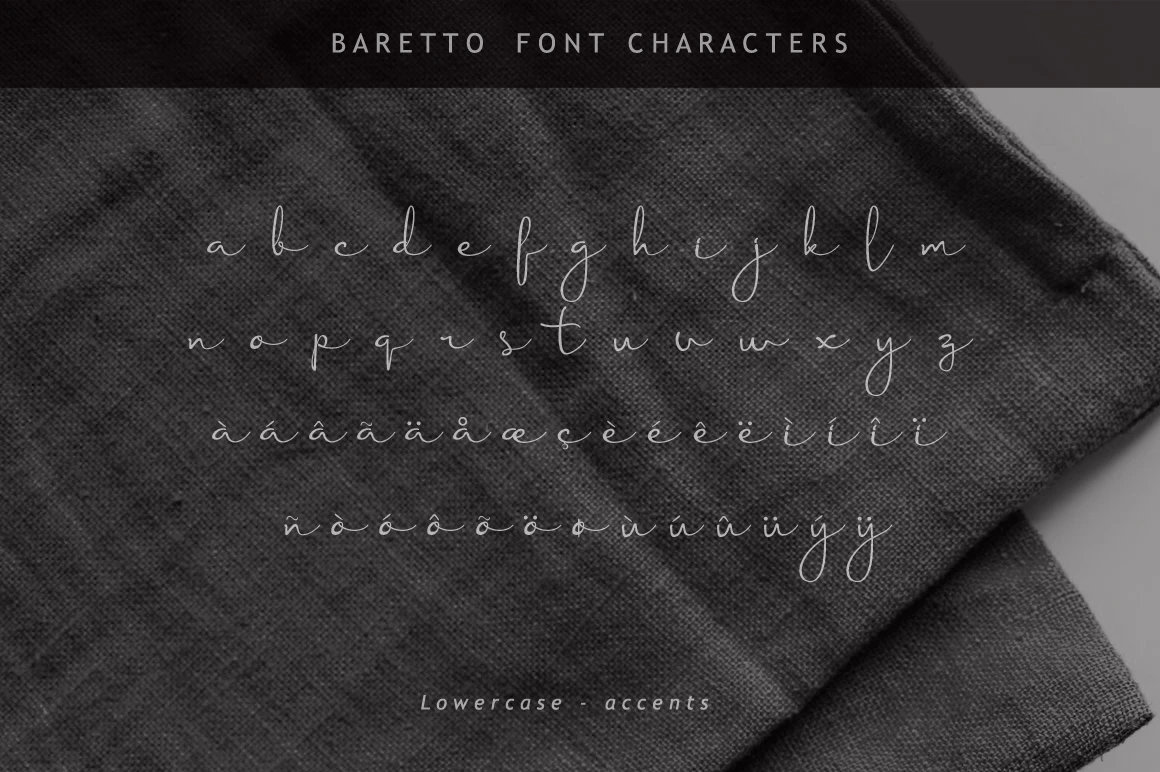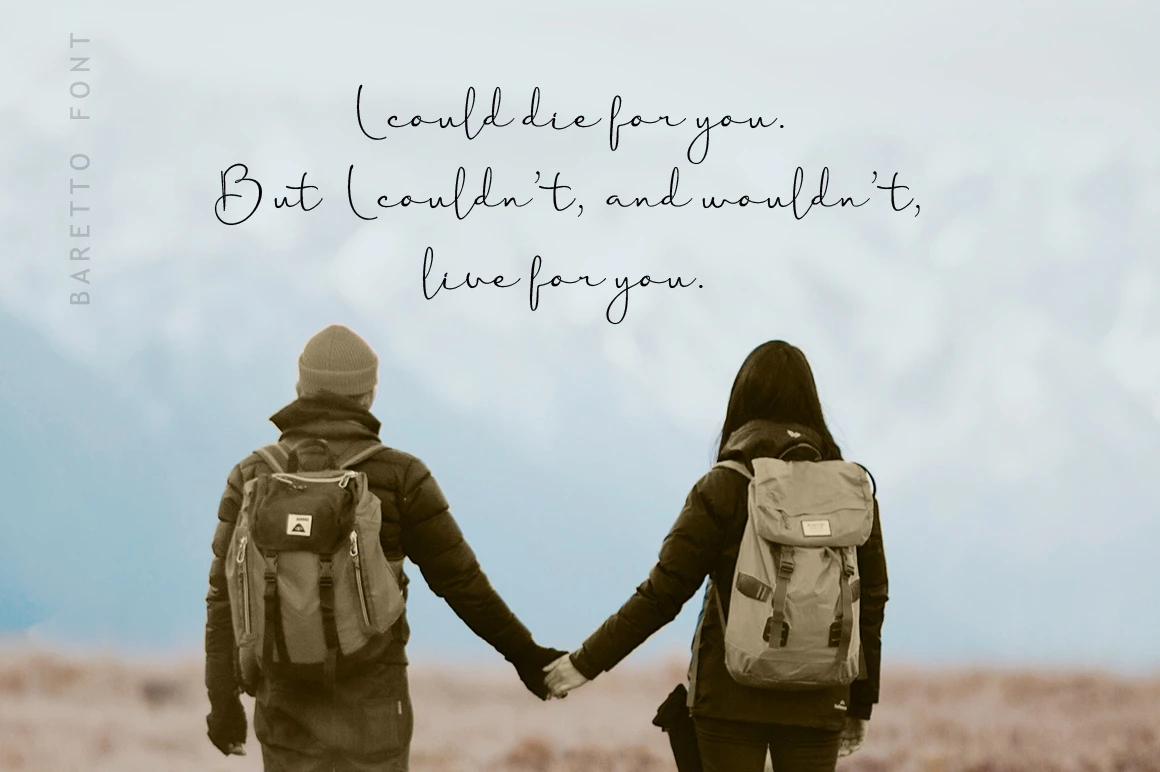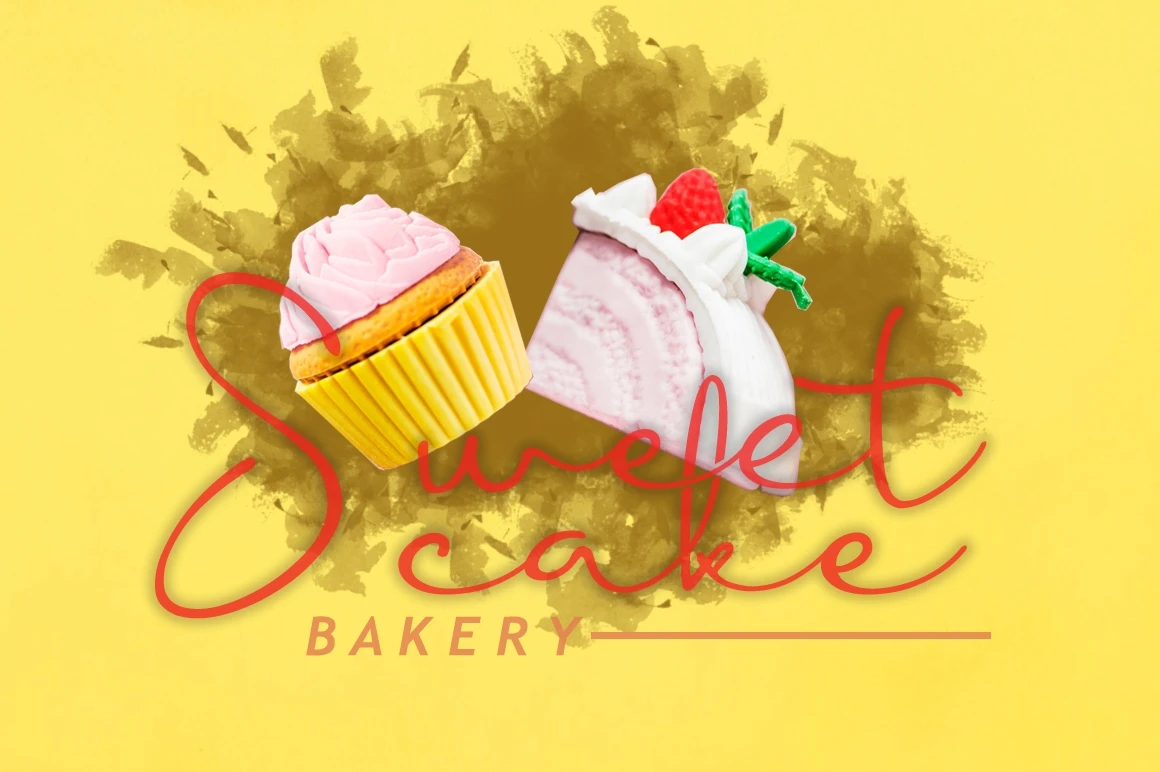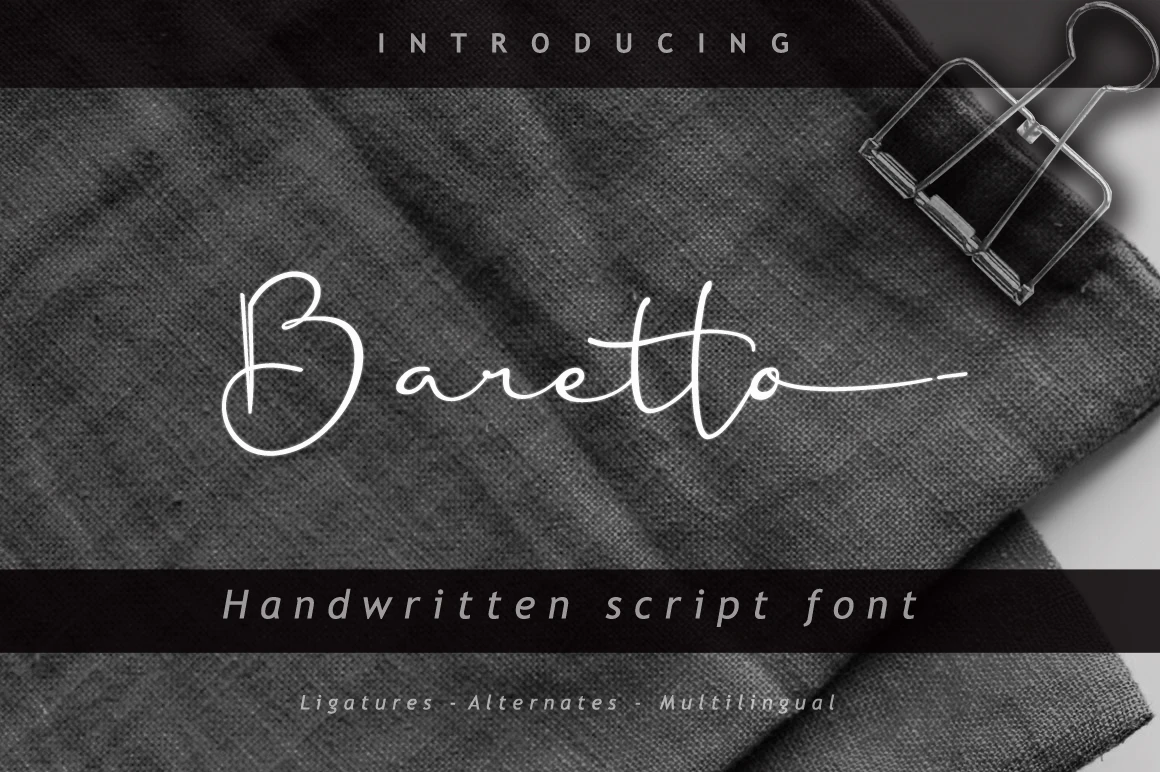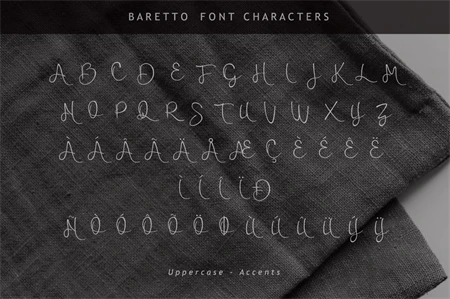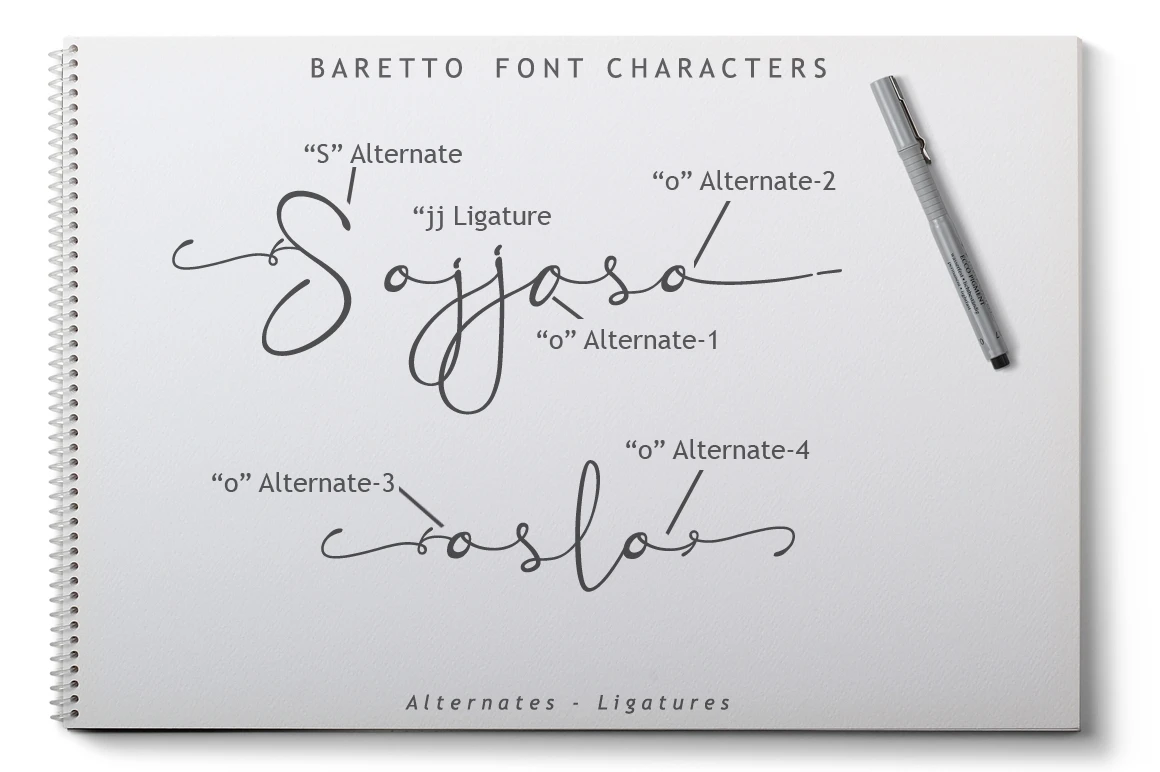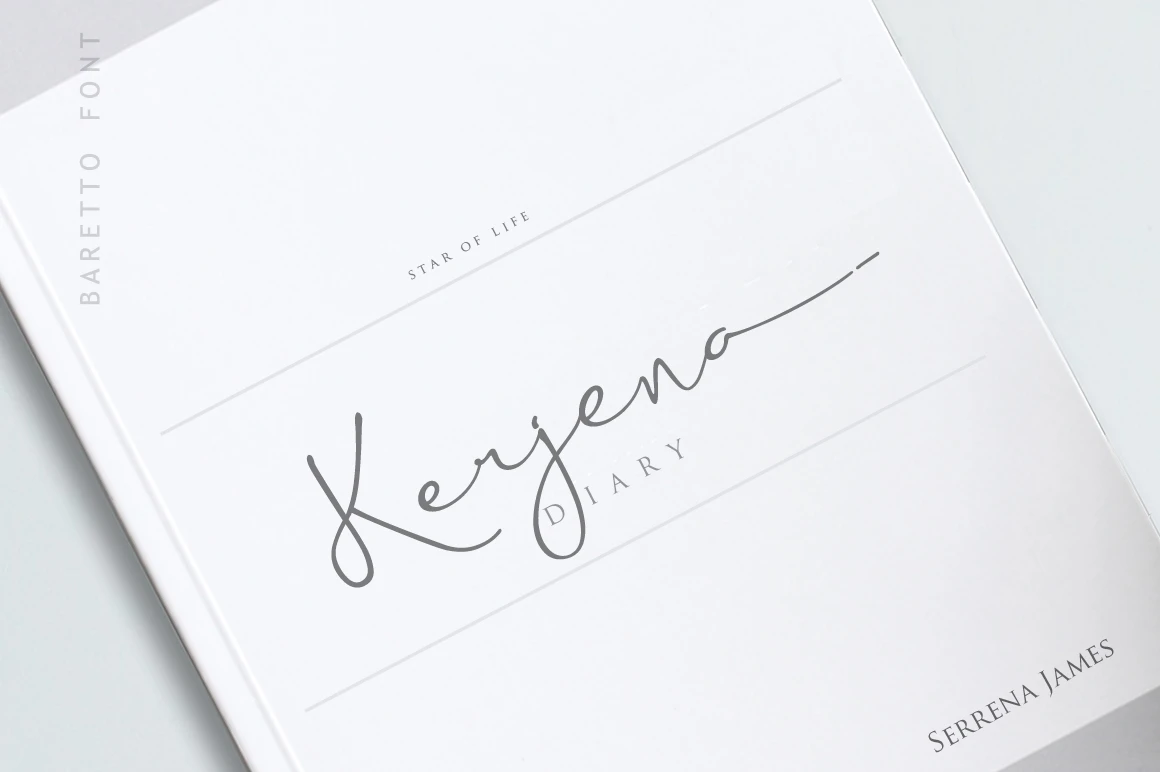
Baretto is a beautiful smooth handwritten script font.It provides realistic handwritten typeface in your design projects, absolutely suited for any display or text use.
Enriched with beautiful alternates and ligatures. Baretto font perfect for branding, quotes, logos, wedding invites, product packaging, headers, cards and many more!.
Features :
- Uppercase A-Z
- Lowercase a-z
- Numbers 0-9
- Accents
- Punctuation
- Uppercase Alternates
- Lowercase Alternates
- Custom Ligatures
- Multilingual support